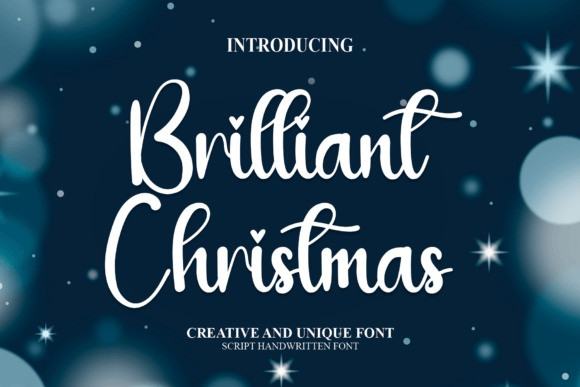
Brilliant Christmas Font
Brilliant Christmas Font is a friendly handwritten font, carefully designed to become a true favorite. This font will be a great addition to your font library, as it will make all your creative projects come alive!